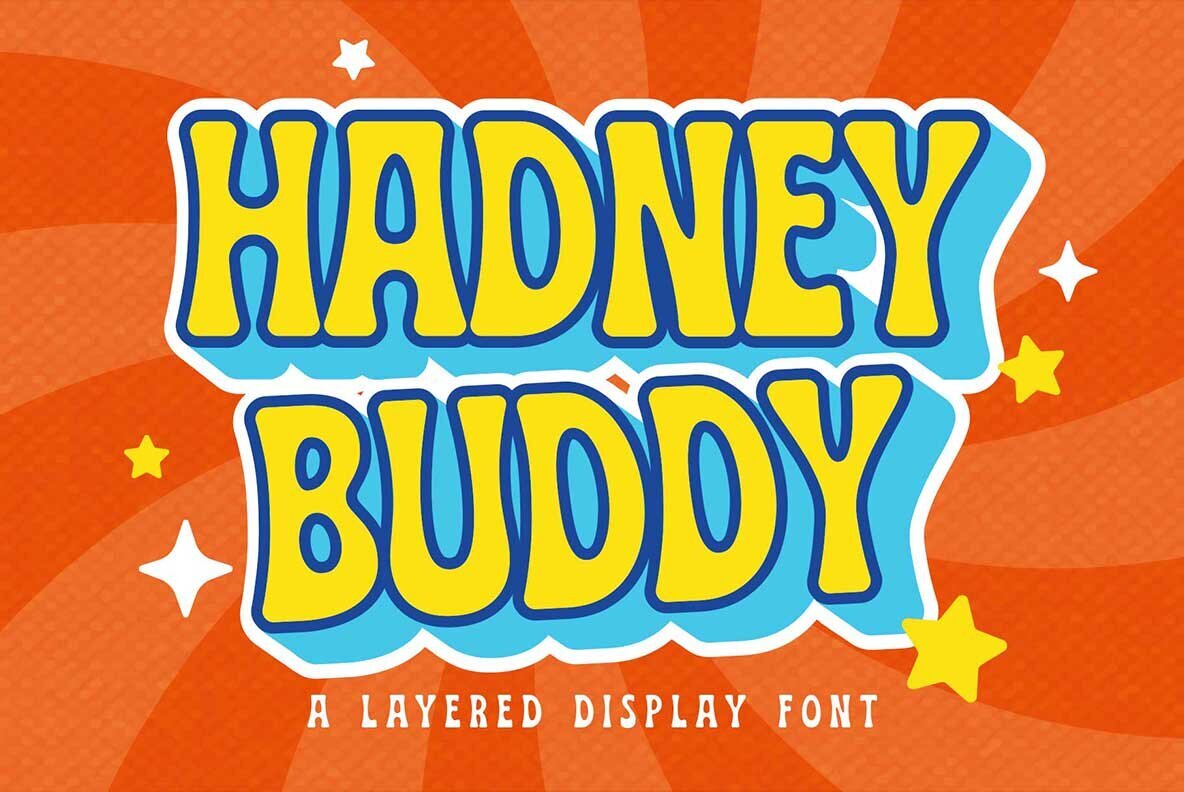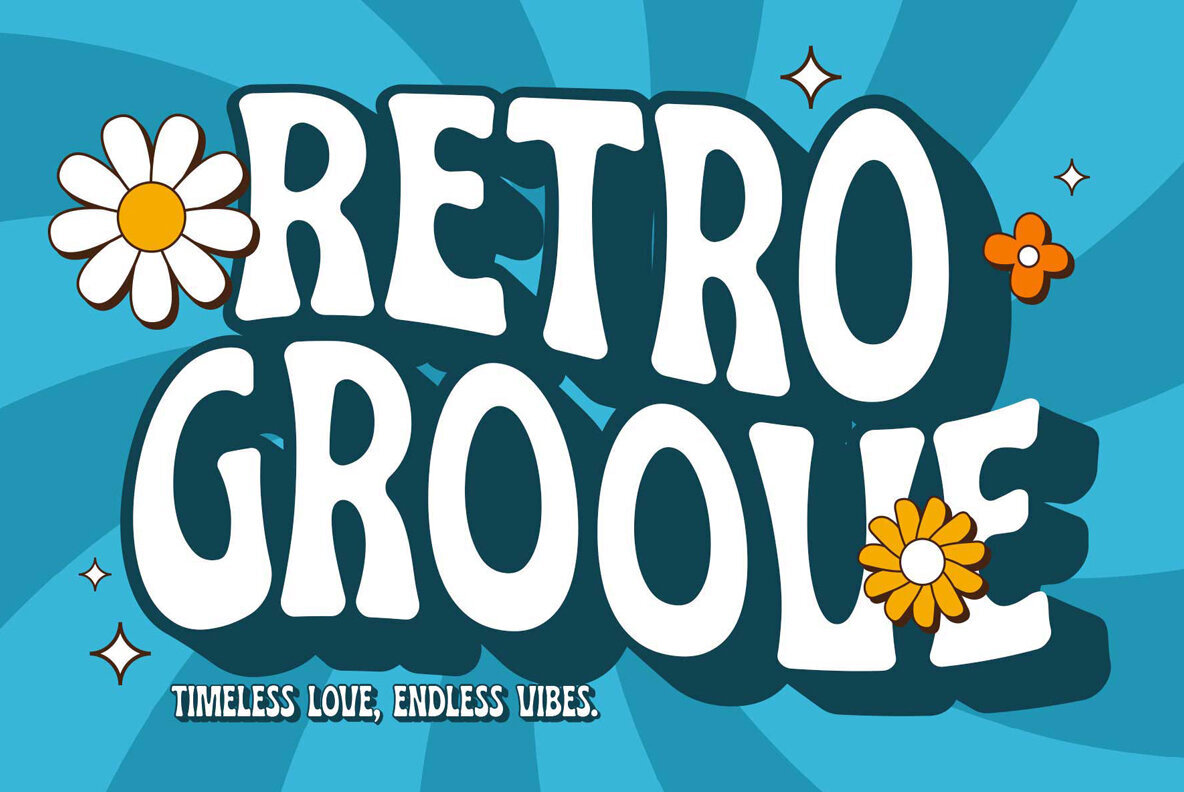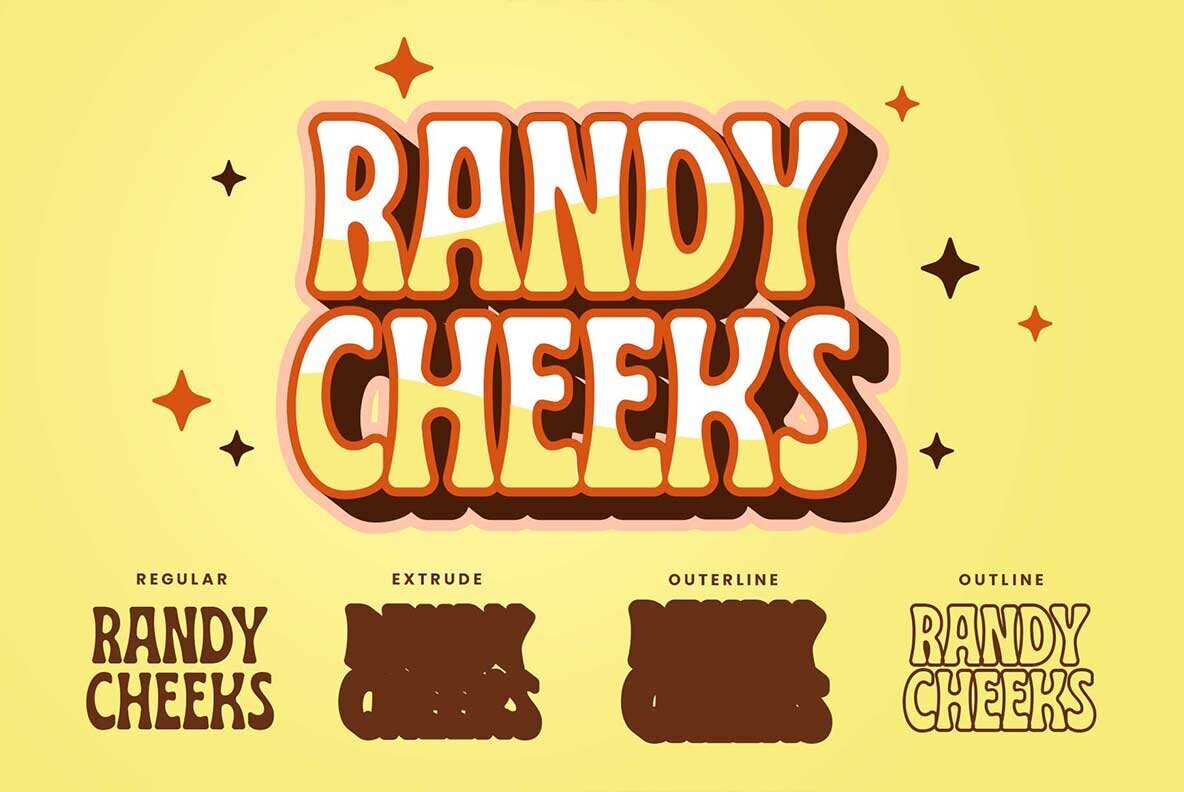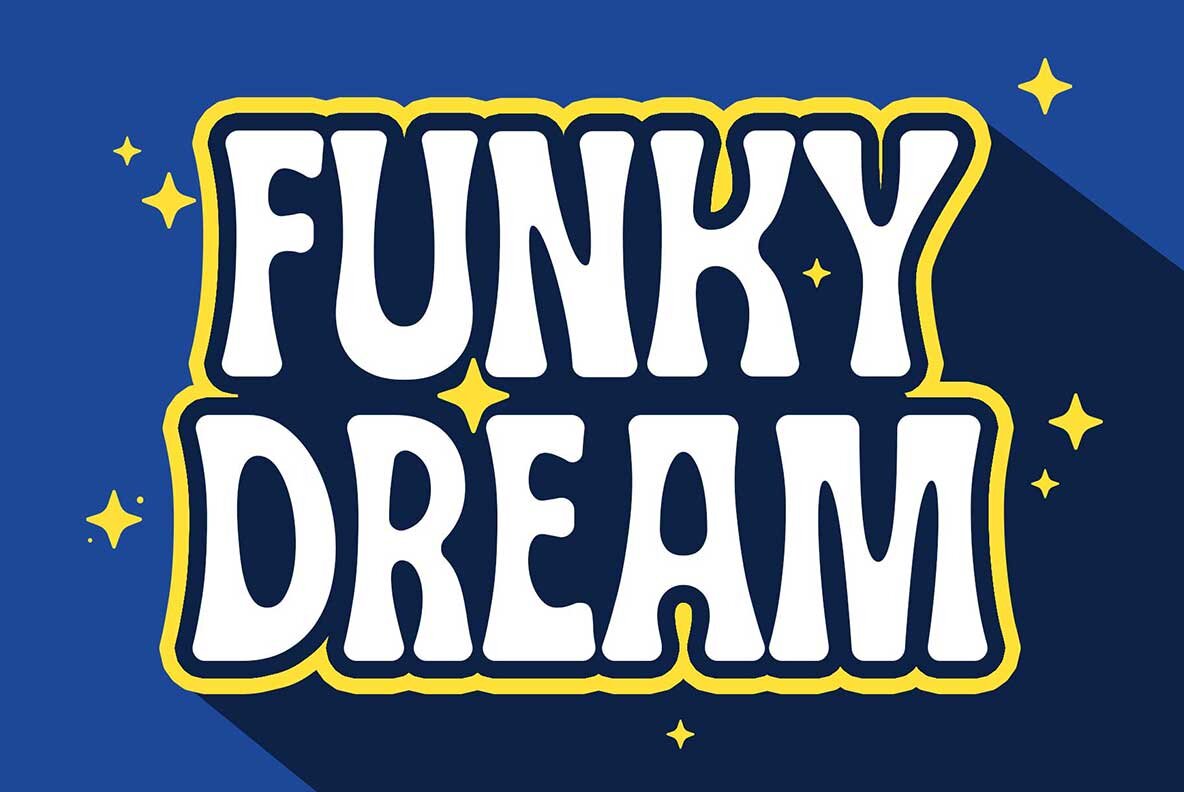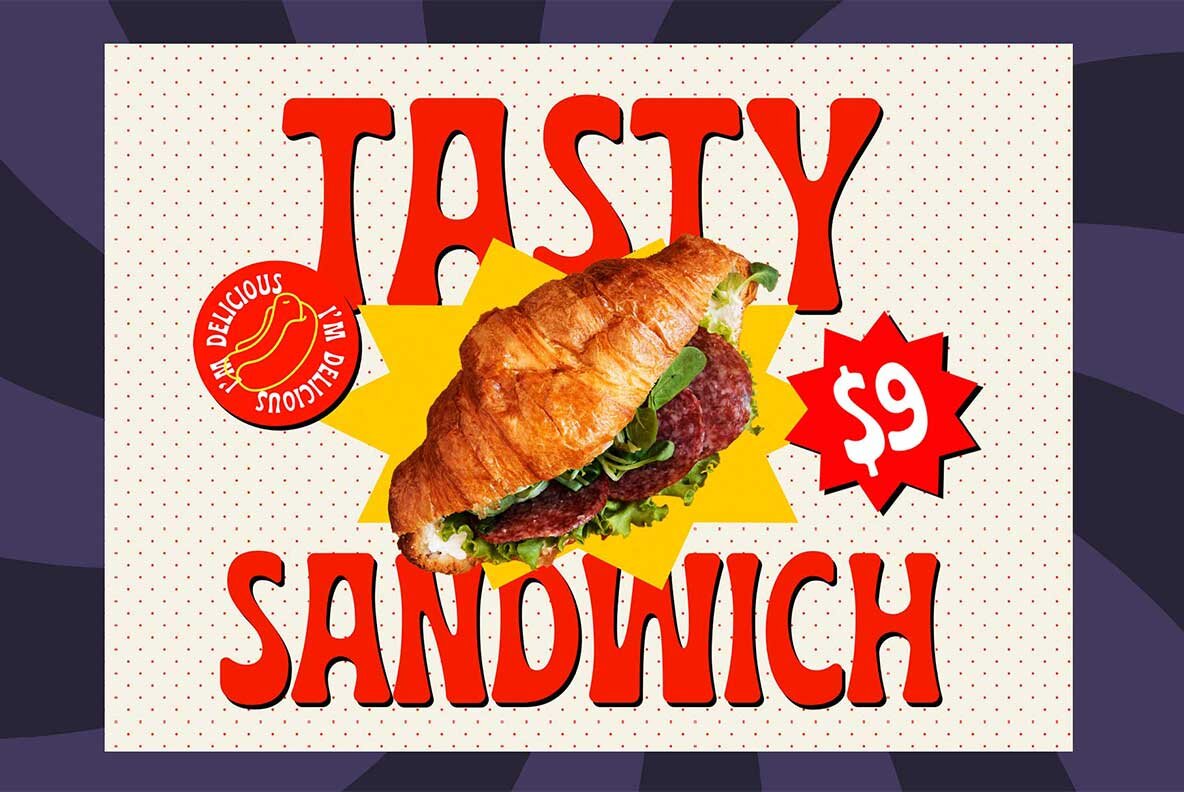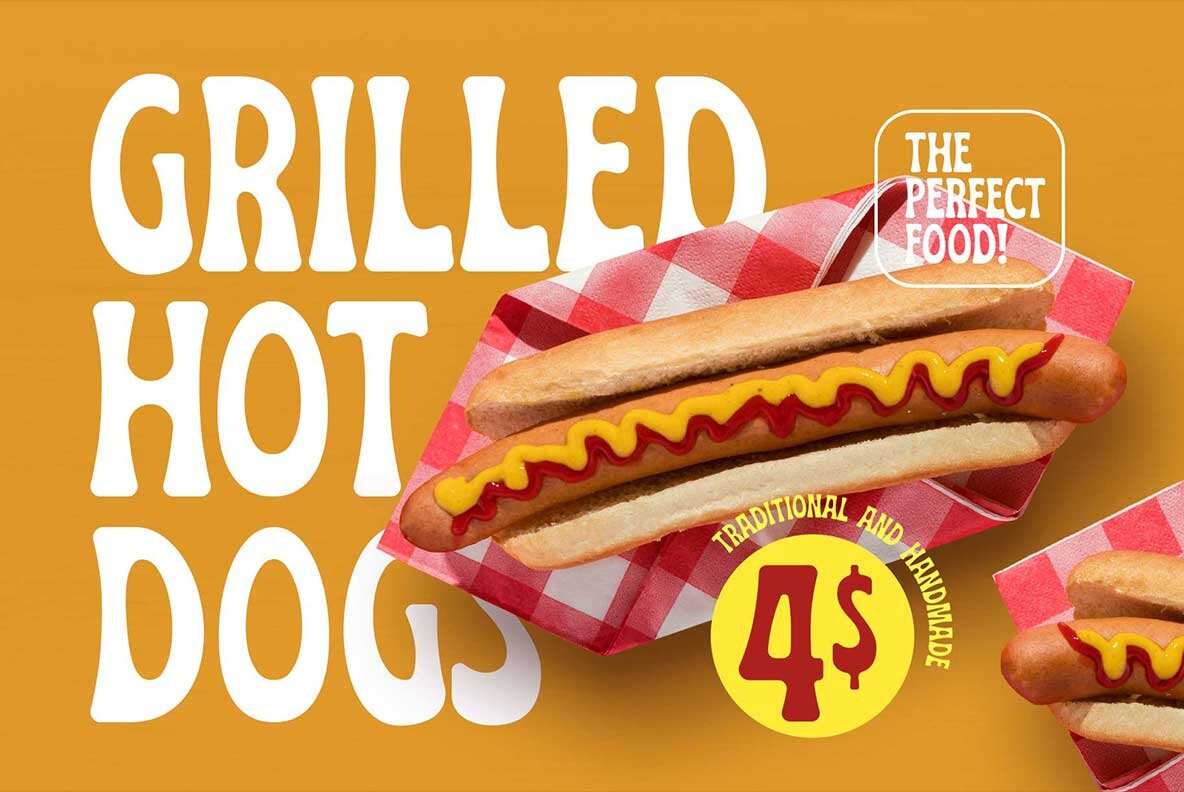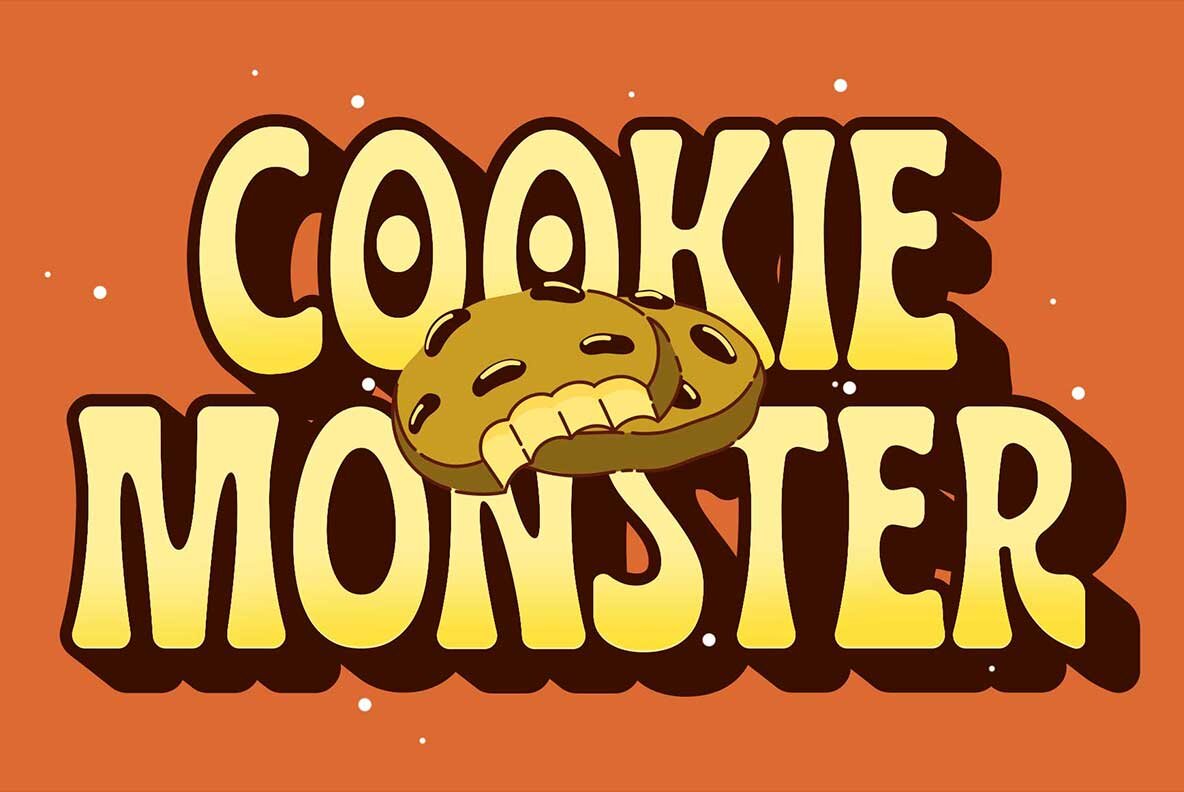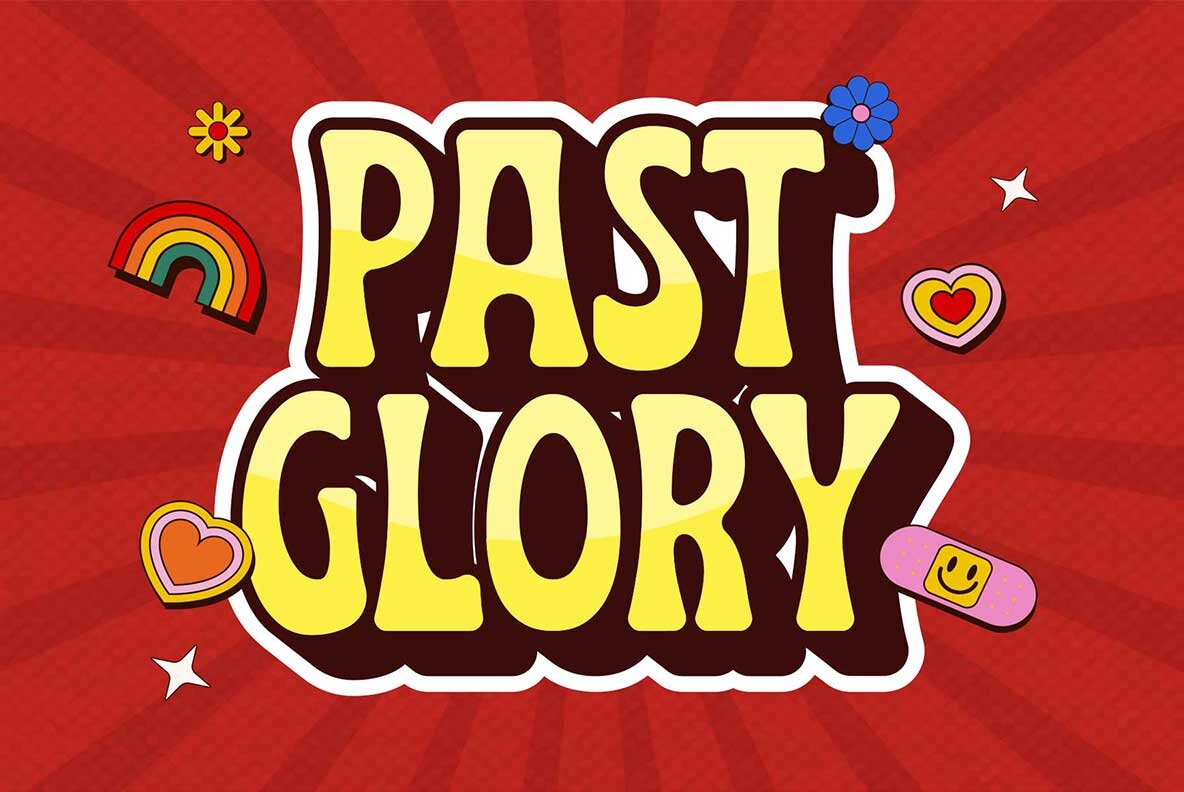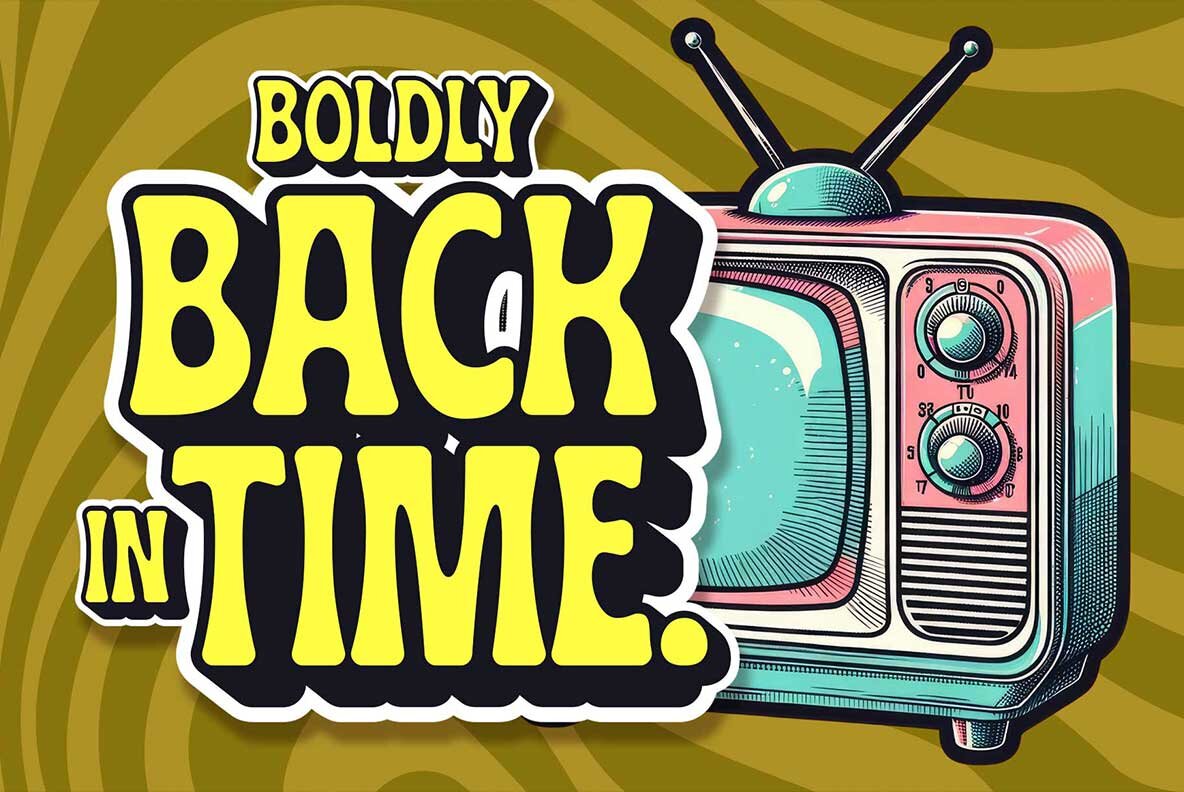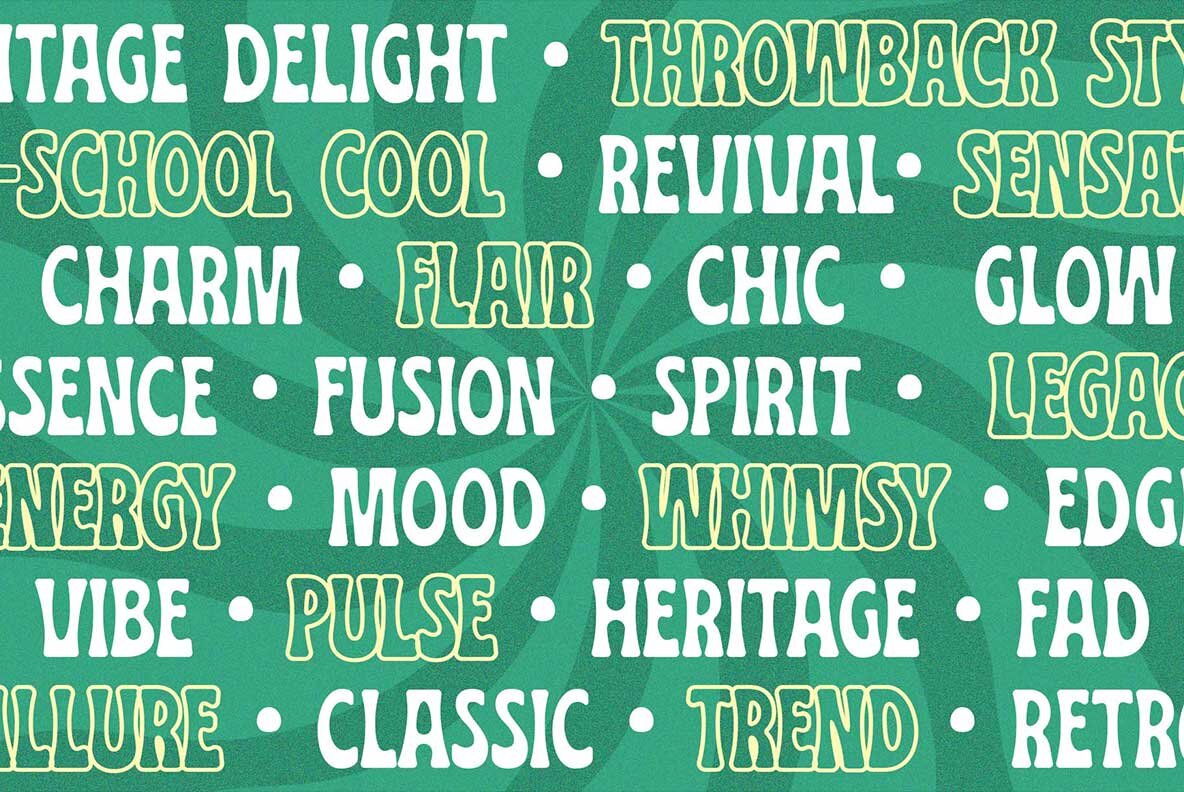
Hadney Buddy Font
Hadney Buddy is a retro display font designed to infuse your work with a nostalgic vibe. Its versatile layered structure offers regular, extrude, outline, and outerline styles, ensuring dynamic and eye-catching typography. With its bold and curvy design, Hadney Buddy seamlessly mixes elegance with a playful cheer, making it ideal for logos, posters, apparel, motion graphics, stickers, branding, and more.
This typeface brings the charm of bygone eras to the forefront, ensuring that your designs leave a lasting impression. Hadney Buddy features all capital characters, numbers, symbols, punctuation, and provides multilingual support. It also includes stylistic alternates, allowing you to customize your typography further and capture the essence of classic nostalgia in a modern format.